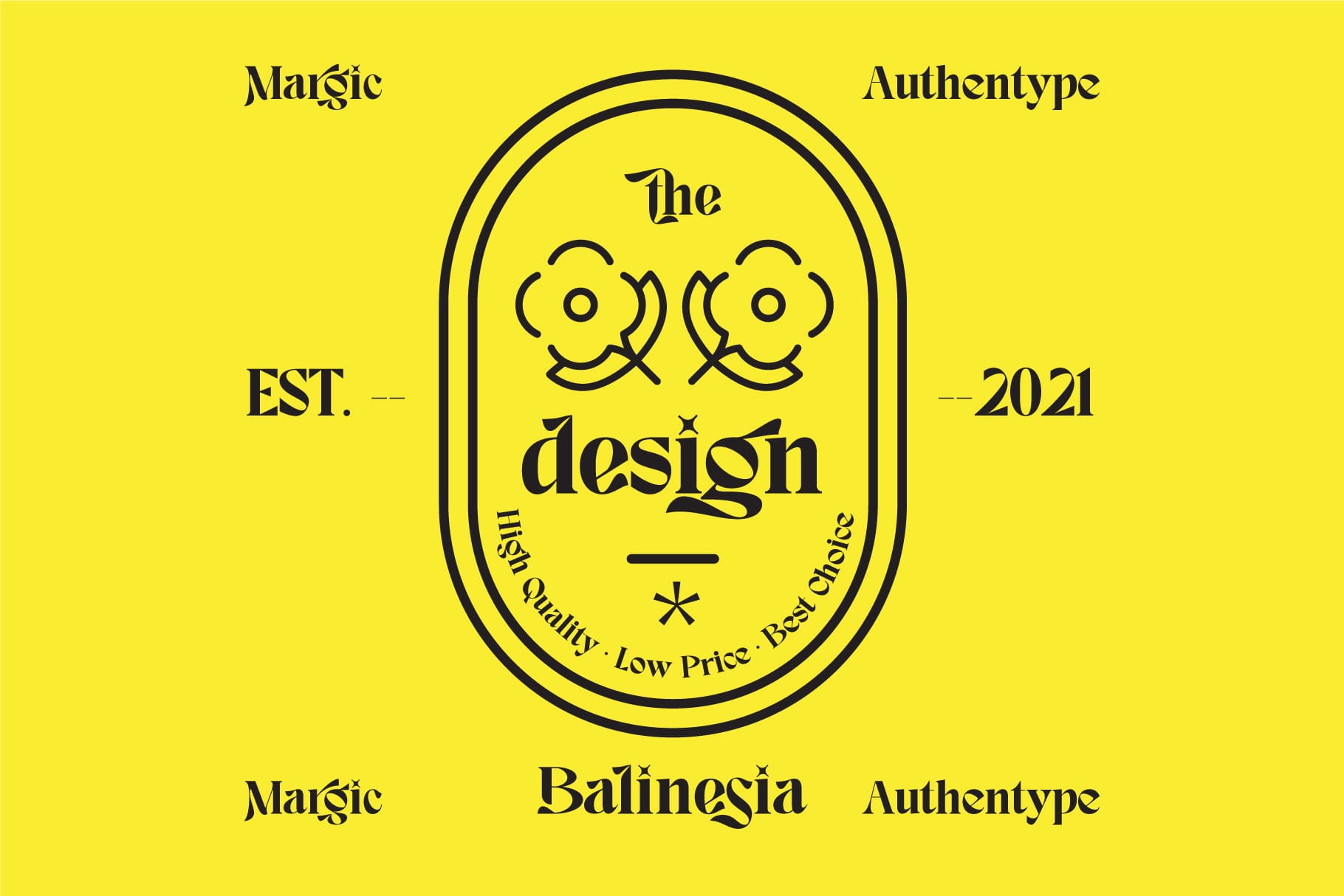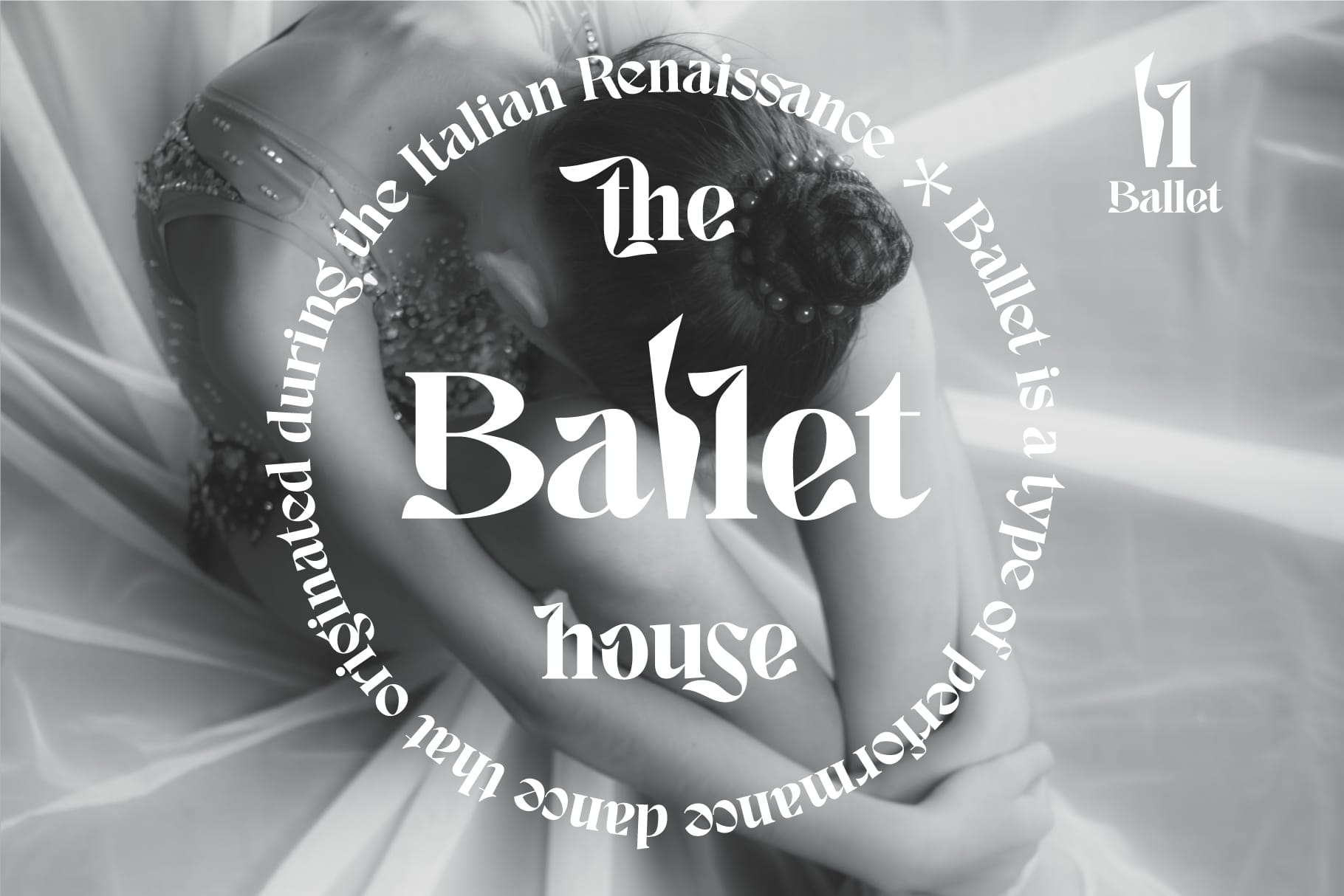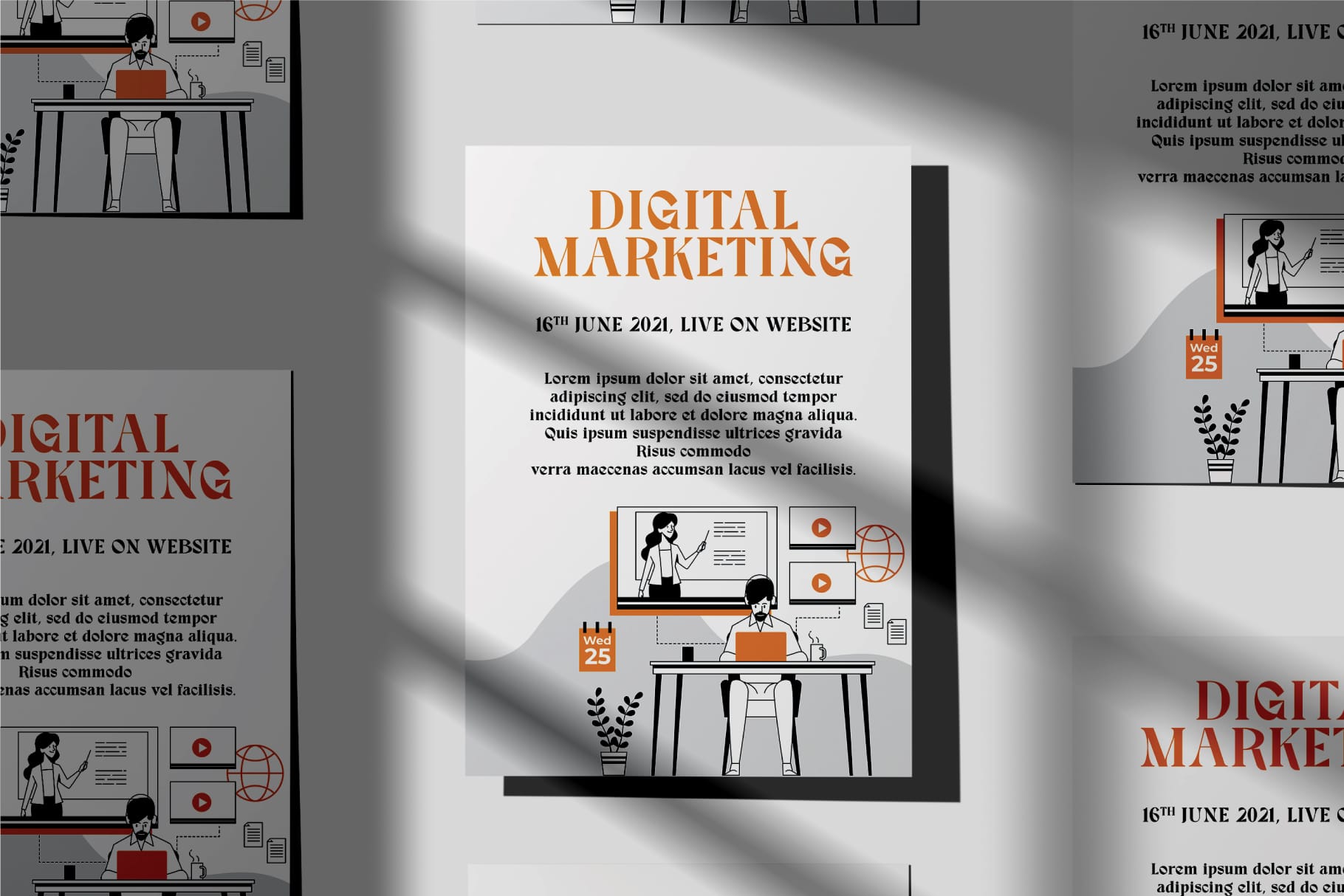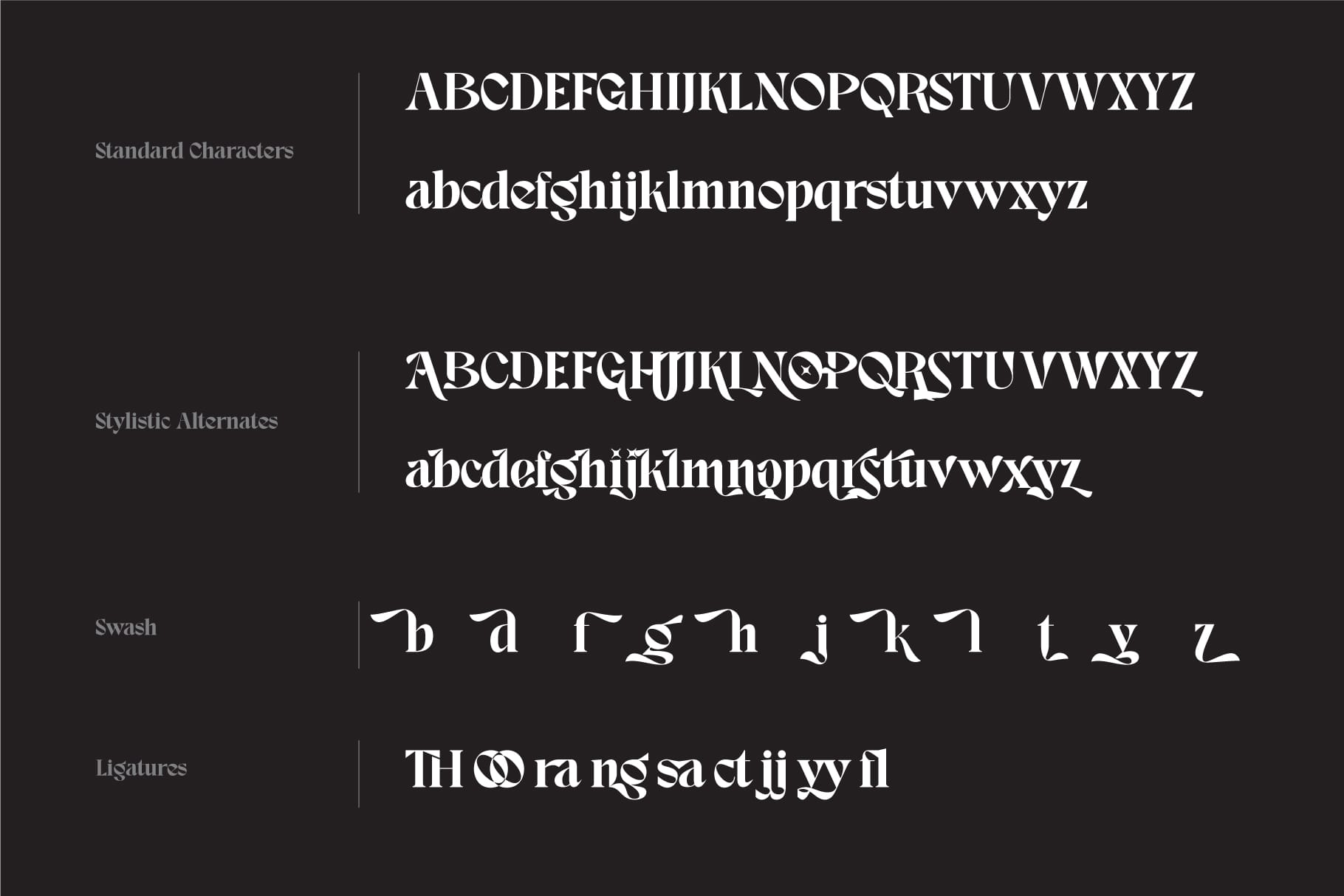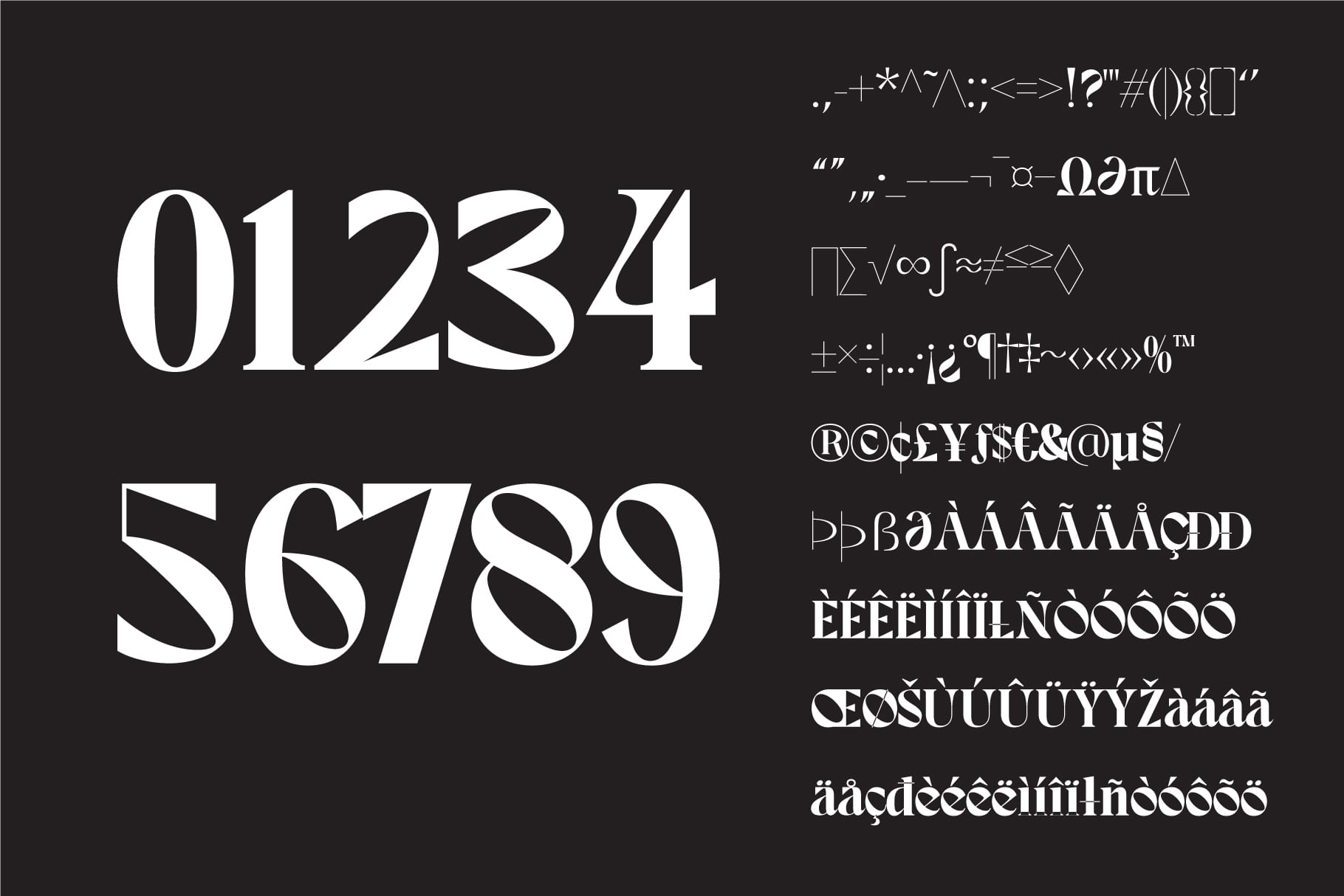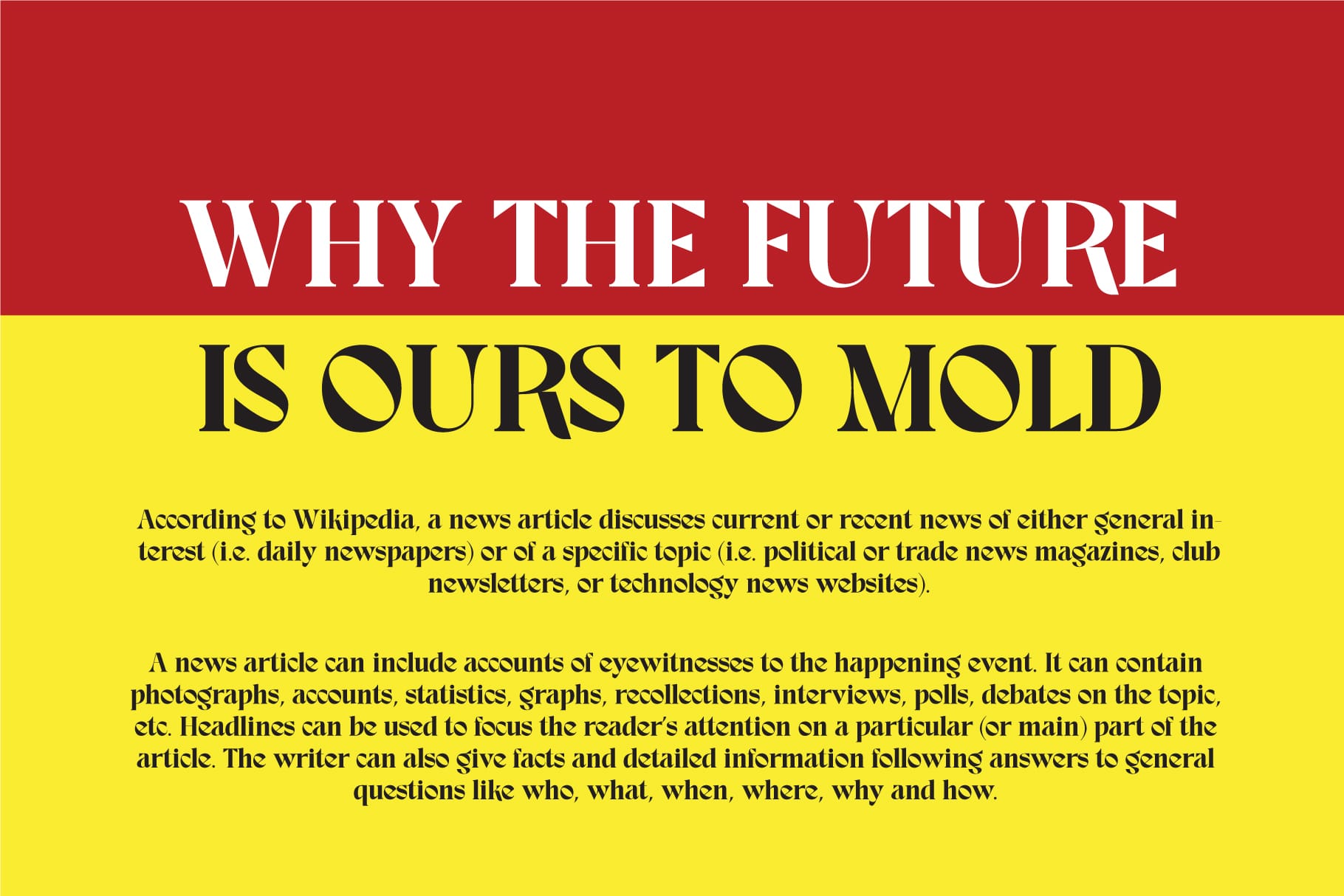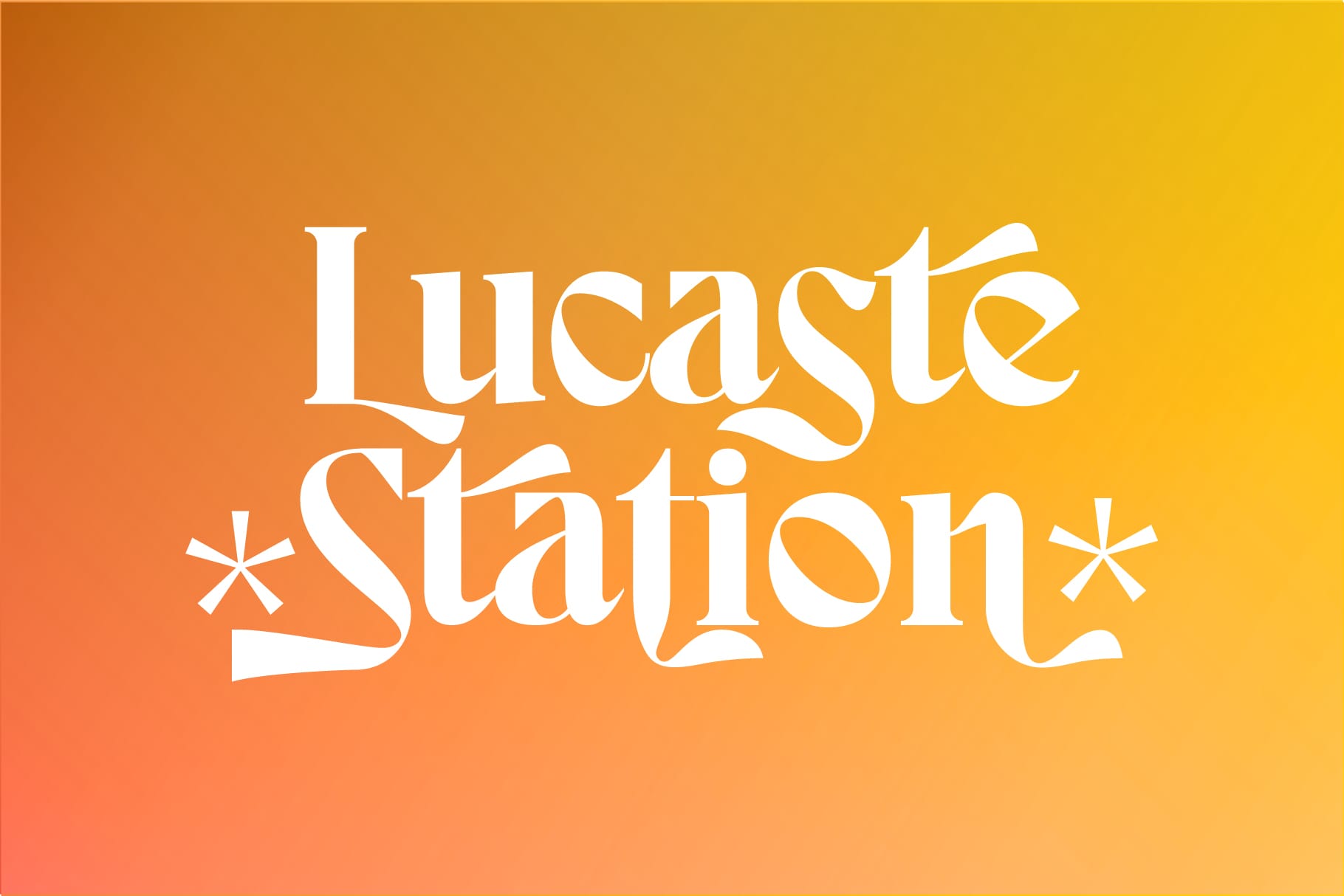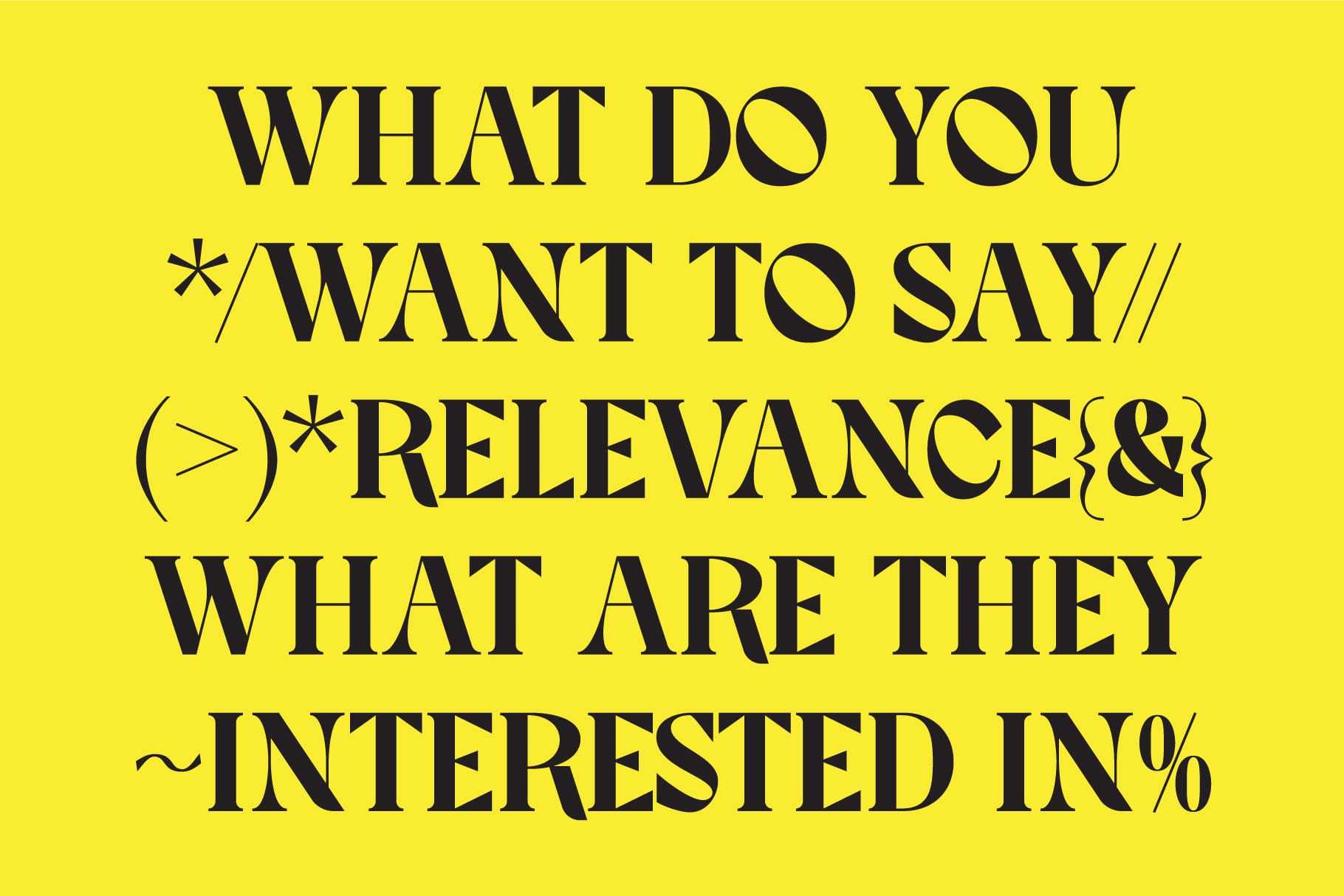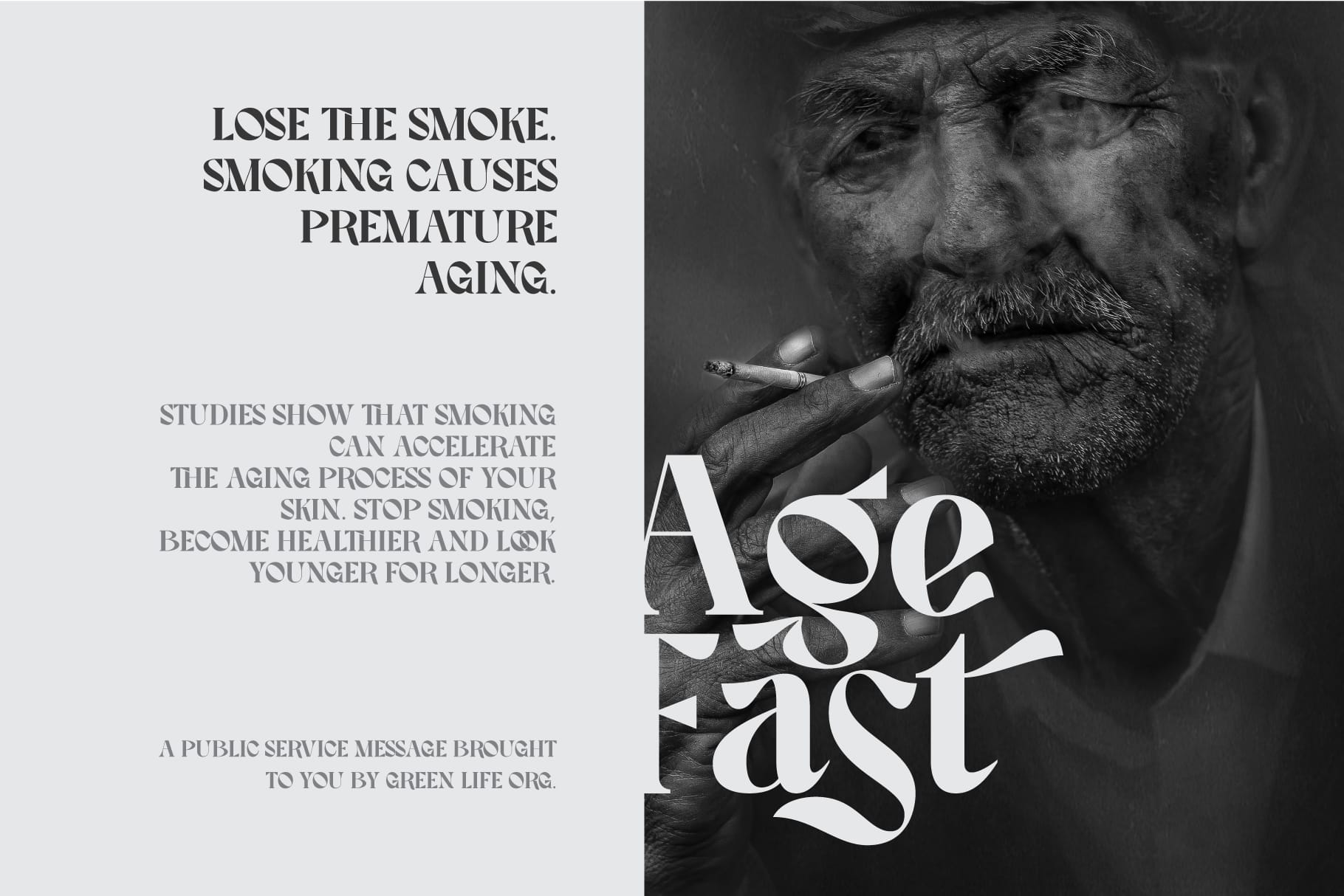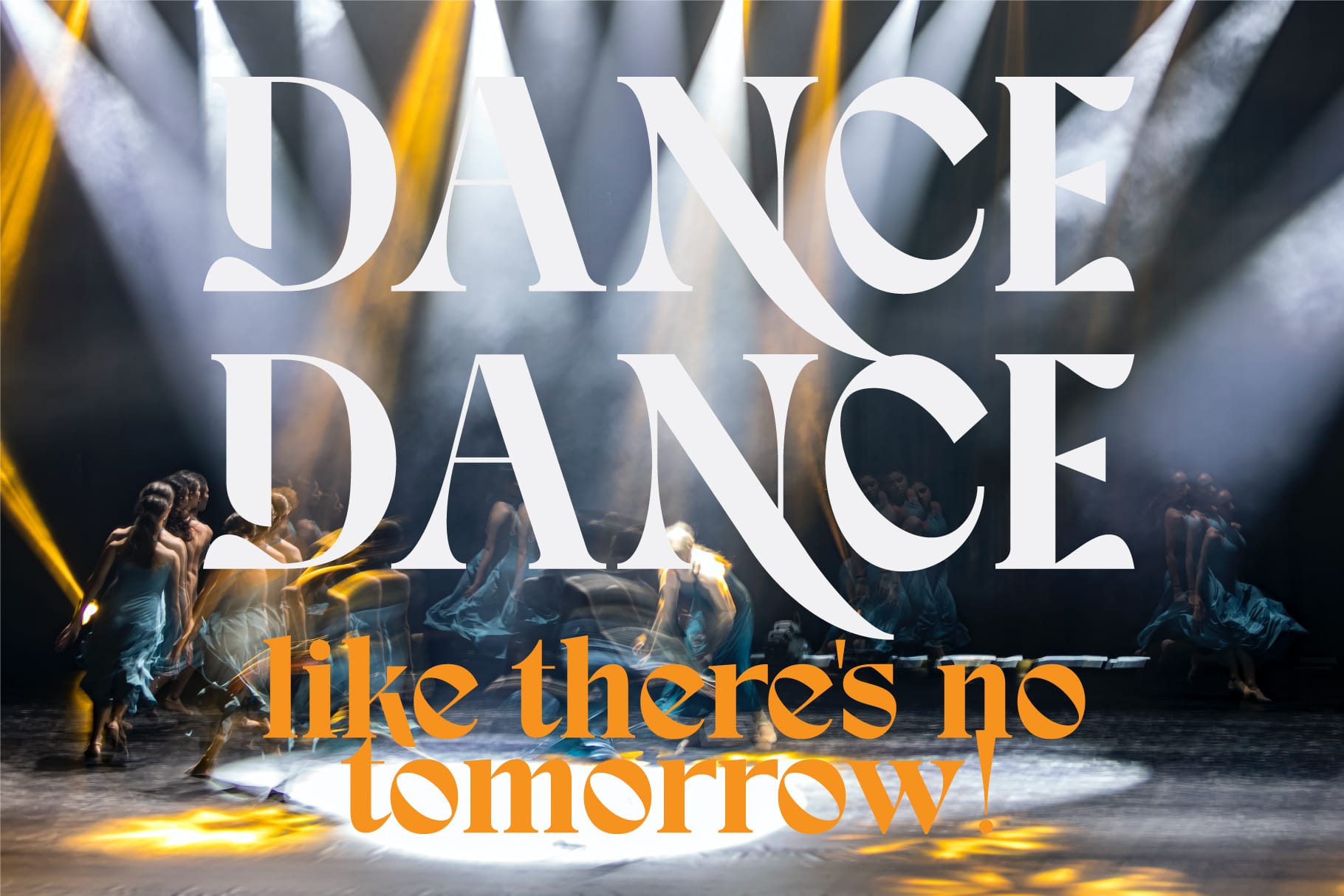
Margic – Charming Serif Typeface
Margic
Margic is a charming serif typeface
Margic designed to bring elegance and versatility to your creative projects. It features two distinctive character styles, allowing you to instantly transform your typography by simply activating Stylistic Alternates. Switch effortlessly from the regular set to a bold, eye-catching variation that adds personality and flair to any design.
This charming serif typeface is enriched with graceful swashes, abundant ligatures, and extensive multilingual support, making it suitable for a wide range of uses. Whether you’re crafting headlines, posters, branding, invitations, or social media graphics, Margic adapts beautifully to both modern and classic themes.
Features Margic charming serif typeface :
Uppercase & lowercase letters with standard glyphs
Numerals & punctuation for versatile design
Multiple ligatures for smooth letter connections
Swashes for decorative accents
Stylistic Alternates / Stylistic Sets for design flexibility
Multilingual support, including characters: ä, ö, ü, Ä, Ö, Ü, ß, ¿, ¡
Bring charm, style, and versatility to your designs with Margic – the charming serif typeface made for creatives who want both elegance and impact.